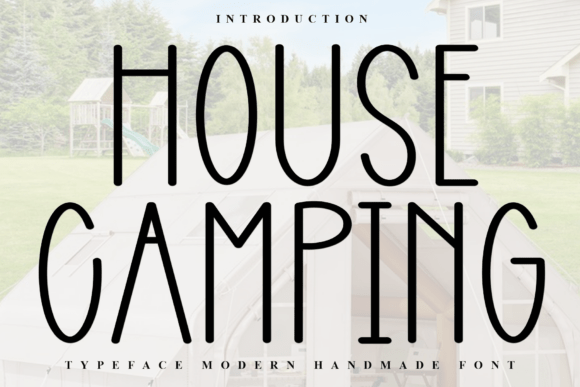
House Camping Font: A Unique and Versatile Typeface for Creative Projects
When it comes to selecting the perfect font for a design project, the options can be overwhelming. However, if you’re looking for a font that stands out from the crowd with its soft, unique touch, then House Camping Font is an excellent choice. This beautiful and eye-catching typeface has been designed to offer a distinctive and special character that can add a meaningful touch to various creative works.
What Makes House Camping Font Special?
House Camping Font boasts a range of features that make it a versatile and valuable addition to any designer’s toolkit. Its soft and unique strokes give it a special character that sets it apart from more traditional fonts. This distinctive quality makes it perfect for a wide range of applications, from design projects and crafts to other creative works.
Key Features of House Camping Font
- Unique and Eye-Catching Design: The font’s soft, unique touch makes it stand out from more conventional typefaces.
- Distinctive Strokes: The font’s strokes have a special character that adds a touch of personality to any design.
- Versatile: House Camping Font is suitable for a wide range of creative projects, including design, crafts, and other artistic endeavors.
- Variety of Characters: The font comes with a range of characters, making it perfect for projects that require a bit of flair.
Applications of House Camping Font
One of the key benefits of House Camping Font is its versatility. Its natural and unique style makes it perfect for a wide range of products and projects. Here are some examples of how you can use House Camping Font:
- Design Projects: Whether you’re working on a logo, brochure, or website, House Camping Font is an excellent choice.
- Crafts: Add a personal touch to your craft projects, such as handmade cards, invitations, or DIY decorations.
- Artistic and Creative Fields: House Camping Font is perfect for artists, designers, and writers looking to add a unique touch to their work.
Benefits of Using House Camping Font
There are several benefits to using House Camping Font in your design projects. Here are a few:
- Enhances Your Designs: The font’s unique and eye-catching design will add a touch of personality to your projects.
- Appeals to a Wide Audience: The natural and soft style of House Camping Font makes it appealing to many audiences across different artistic and creative fields.
Tips for Using House Camping Font Effectively
To get the most out of House Camping Font, here are a few tips:
- Use it Sparingly: While House Camping Font is a beautiful and eye-catching typeface, it can be overwhelming if used excessively. Use it sparingly to add a touch of personality to your designs.
- Pair it with Other Fonts: Experiment with pairing House Camping Font with other fonts to create a unique and visually appealing design.
- Experiment with Different Sizes and Colors: Don’t be afraid to experiment with different sizes and colors to find the perfect combination for your design.
In conclusion, House Camping Font is a unique and versatile typeface that offers a range of benefits for designers, artists, and writers. Its soft, unique touch and distinctive strokes make it perfect for a wide range of creative projects, from design and crafts to other artistic endeavors. With its compatibility with various applications, including Windows and open-source platforms, House Camping Font is an excellent addition to any designer’s toolkit.
- Q: What is House Camping Font?
- A: House Camping Font is a unique and eye-catching typeface designed with a soft, unique touch.